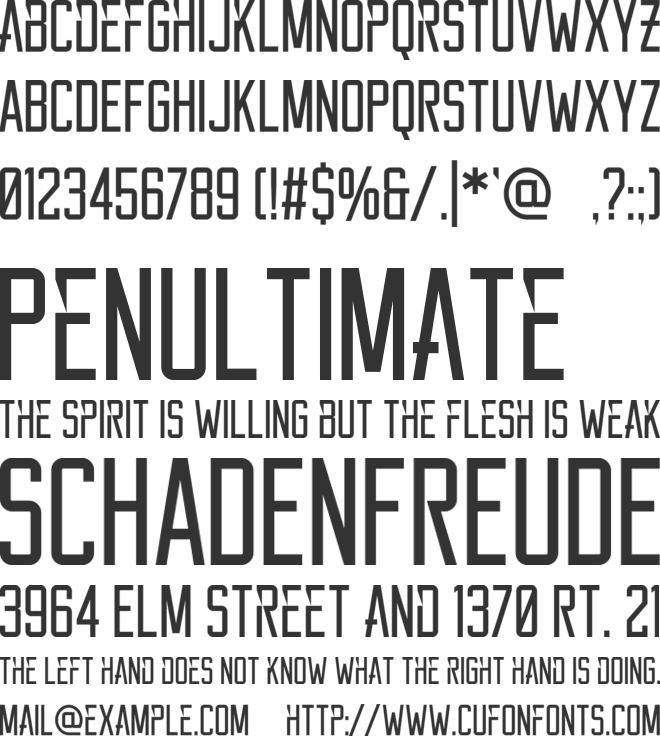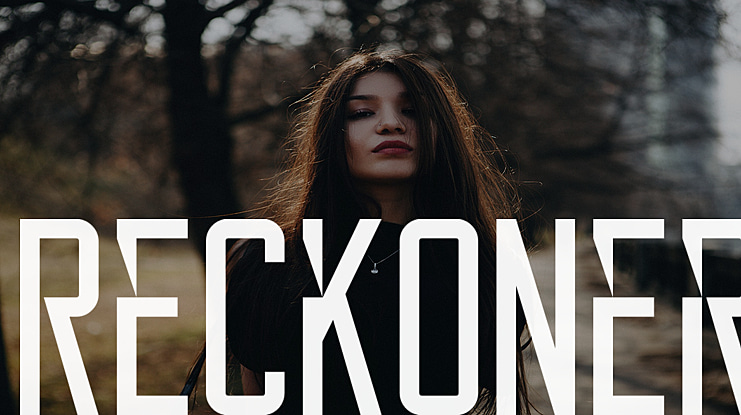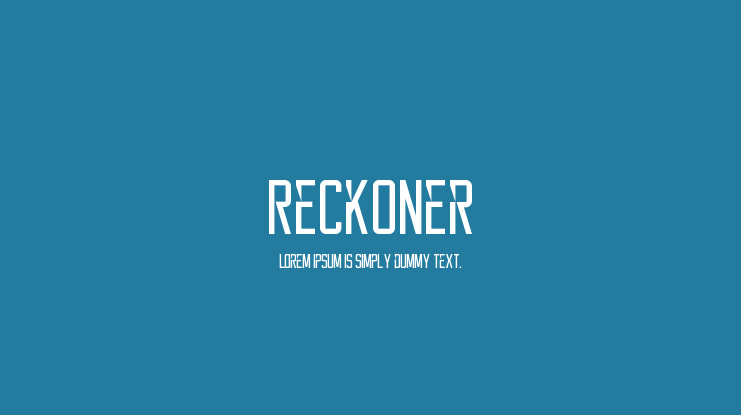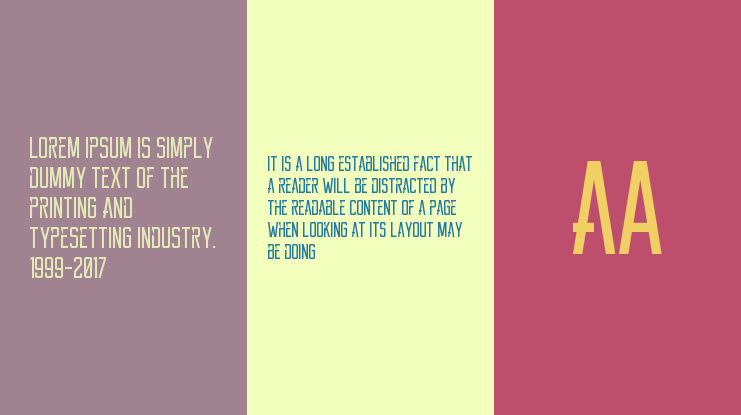
Reckoner Font Family
Drawing inspiration from popular industrial sans serif typefaces such as Bebas Neue, Alegre Sans & Dharma Gothic, I set out to design a typeface with a modern twist whilst keeping the fundamentals of a traditional font. The result is âReckonerâ, a free for commercial/personal use typeface that features a secondary set of characters in the lowercase setting that can be placed in your designs to add a unique touch to certain words.
Reckoner is currently available in 2 weights (for now). This typeface is ideal for logotypes headings, and is available for you to download.